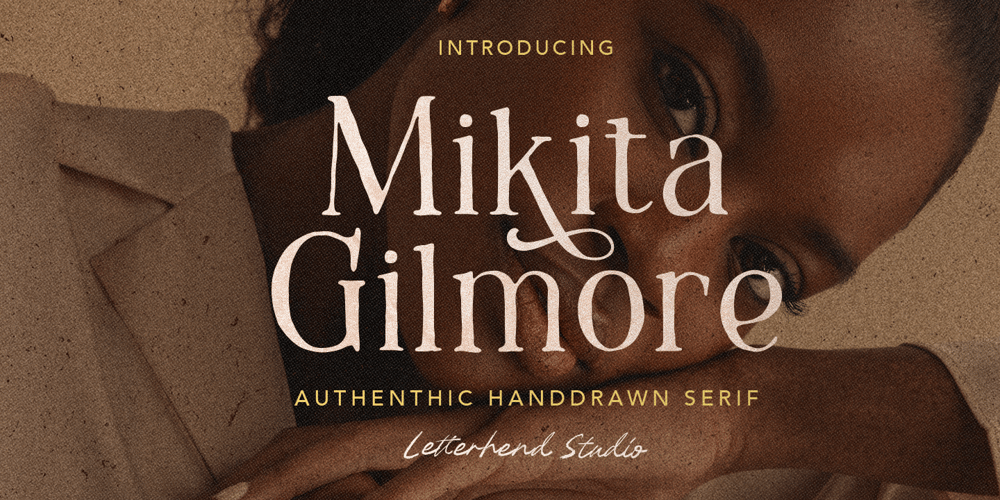
Mikita Gilmore
Mikita Gilmore font
Mikita Gilmore Font Family was designed by Hendry Juanda and published by Letterhend. Mikita Gilmore contains 1 styles and family package options. Mikita Gilmore is a sophisticated serif with authentic handdrawn style. Perfectly to be applied to the other various formal forms such as invitations, labels, logos, magazines, books, greeting / wedding cards, packaging, fashion, make up, stationery, novels, labels or any type of advertising purpose.Features : Uppercase & lowercase Numbers and punctuation Alternates & Ligatures Multilingual PUA encoded